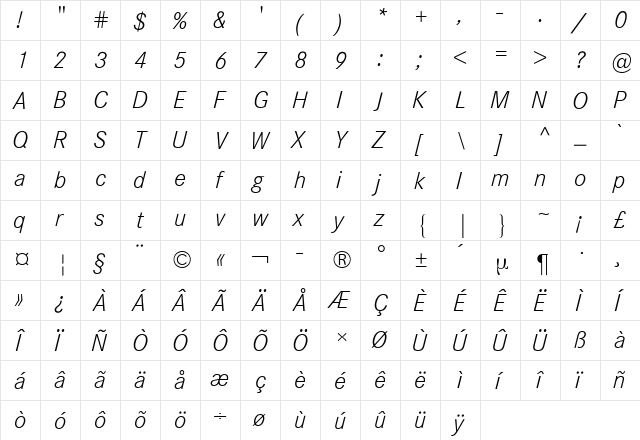
Corporate S BQ Light Italic
Design Context for Corporate S BQ Typeface
Corporate S BQ takes a measured approach to typography — its balanced proportions and neutral character make it a reliable workhorse for both digital and print work. Its italic angle brings a sense of urgency and motion to the letterforms. The delicate stroke weight brings airiness and refinement to layouts.
Pro Tip: Use Corporate S BQ for emphasis, pull quotes, and subheadings where its slanted energy can add rhythm to the layout.